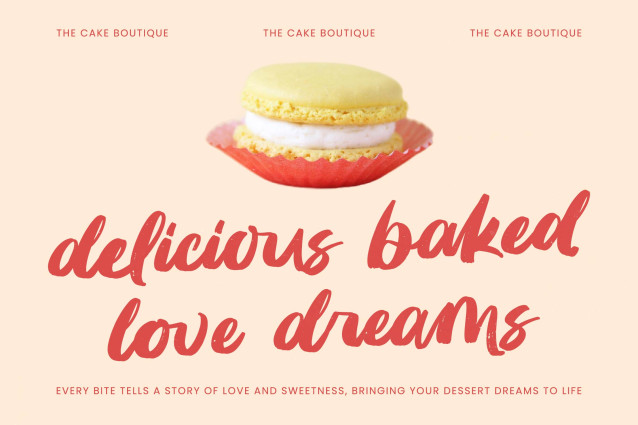
Drolly Display Font
Drolly is a bold and cartoon like display font. Its sweet style and chunky letters make this font incredibly fitting to a large pool of designs. The only limit is your imagination!
Designer Name: HydricDesign